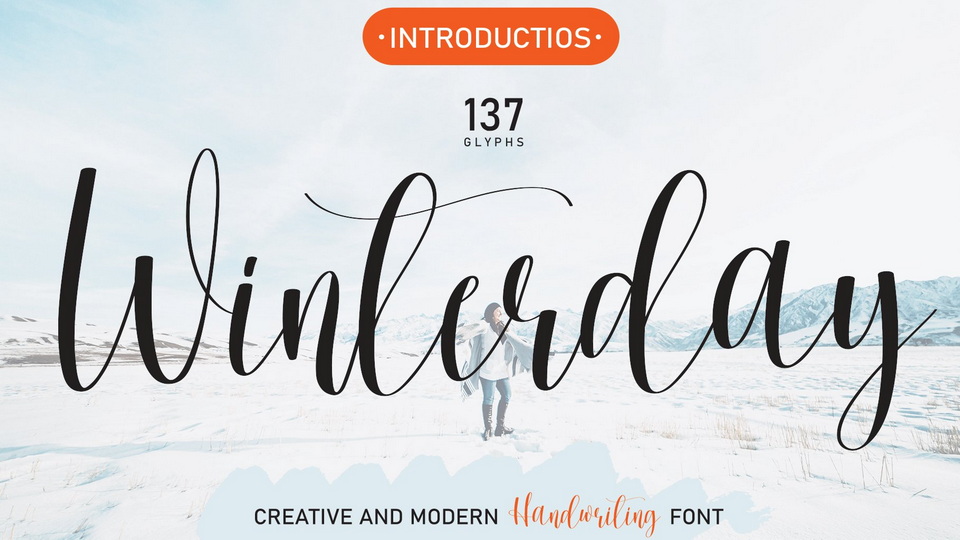
Download Winterday font, an elegant handwritten font made of beautiful creative strokes. Winterday font is perfect for your creative ideas, both formal and informal.